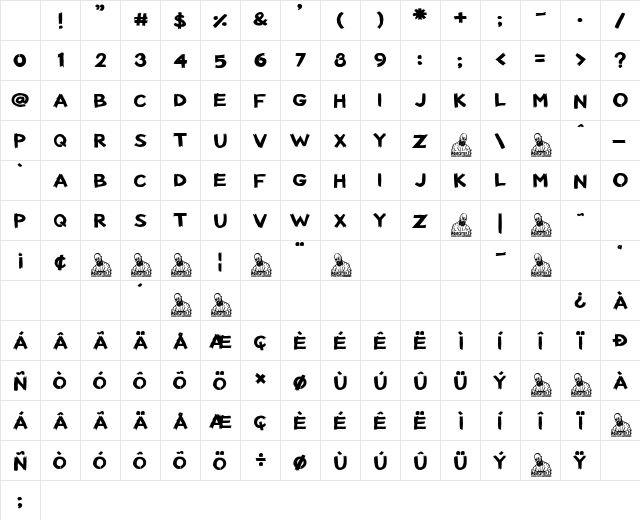
Complete Italian Sex Party Regular glyph index. Displaying only characters natively supported by Italian Sex Party Regular font.
Italian Sex Party is a composed and adaptable typeface that performs quietly and consistently across a wide range of design contexts.